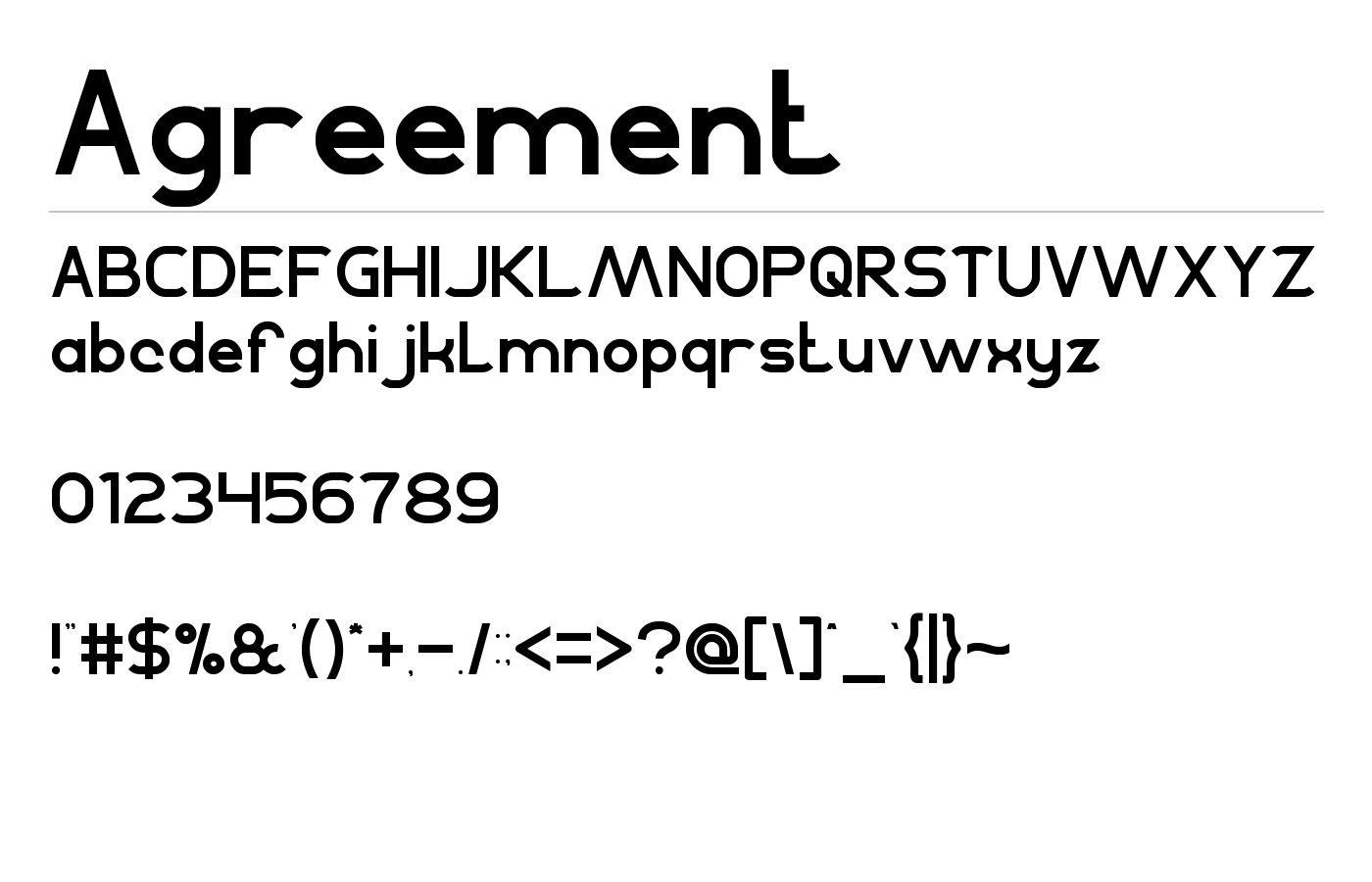
Agreement Font is a modern sans serif typeface with a clean, geometric structure and distinctive angular terminals that add a unique character without compromising readability. Its medium weight, balanced letter spacing, and moderate x-height make it versatile for contemporary branding, editorial design, and digital interfaces where a fresh, approachable yet professional look is desired. This font works especially well in logos, headlines, and user interfaces due to its clear legibility and stylish, forward-thinking personality.
Agreement Font
About Agreement Font